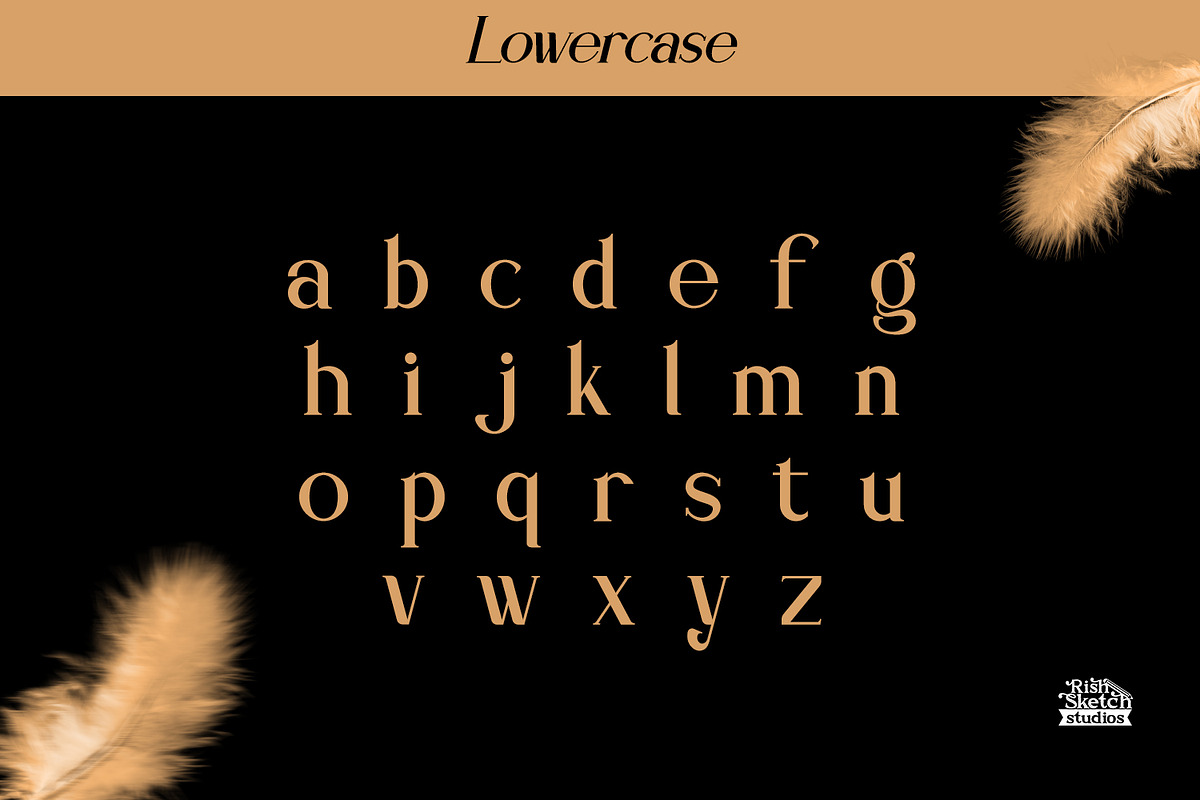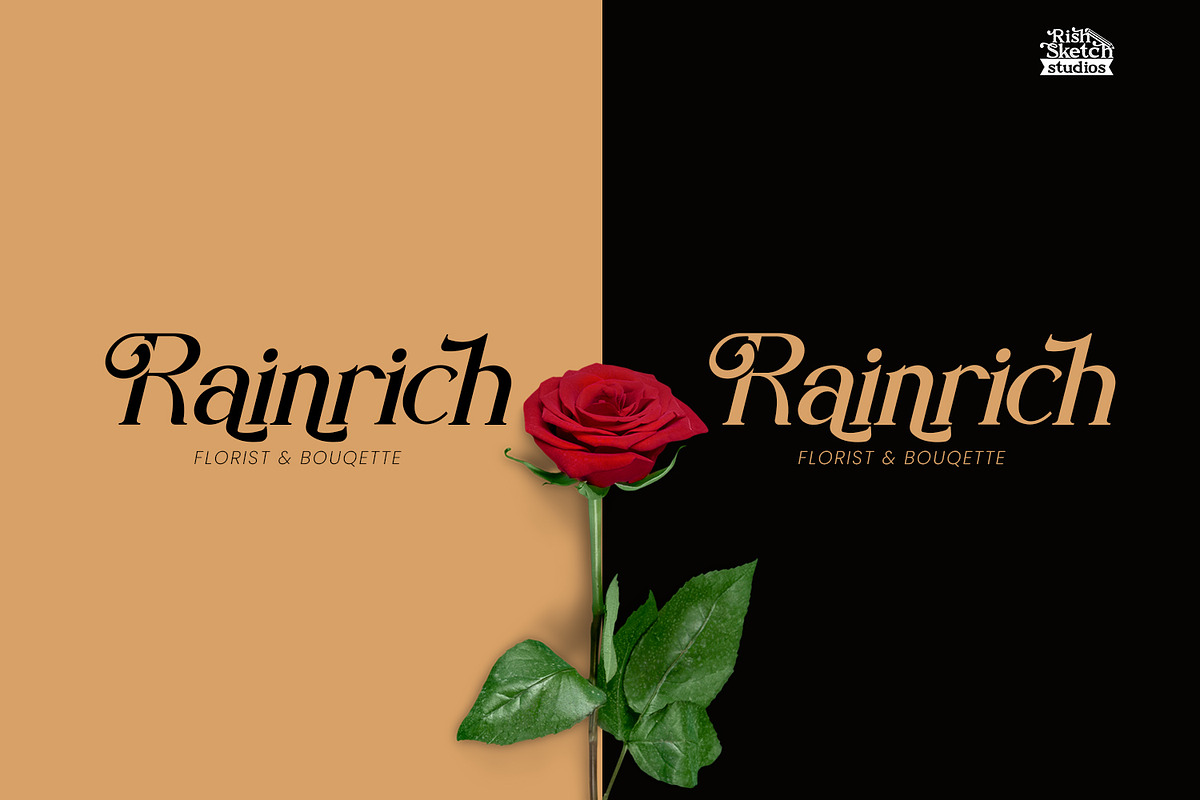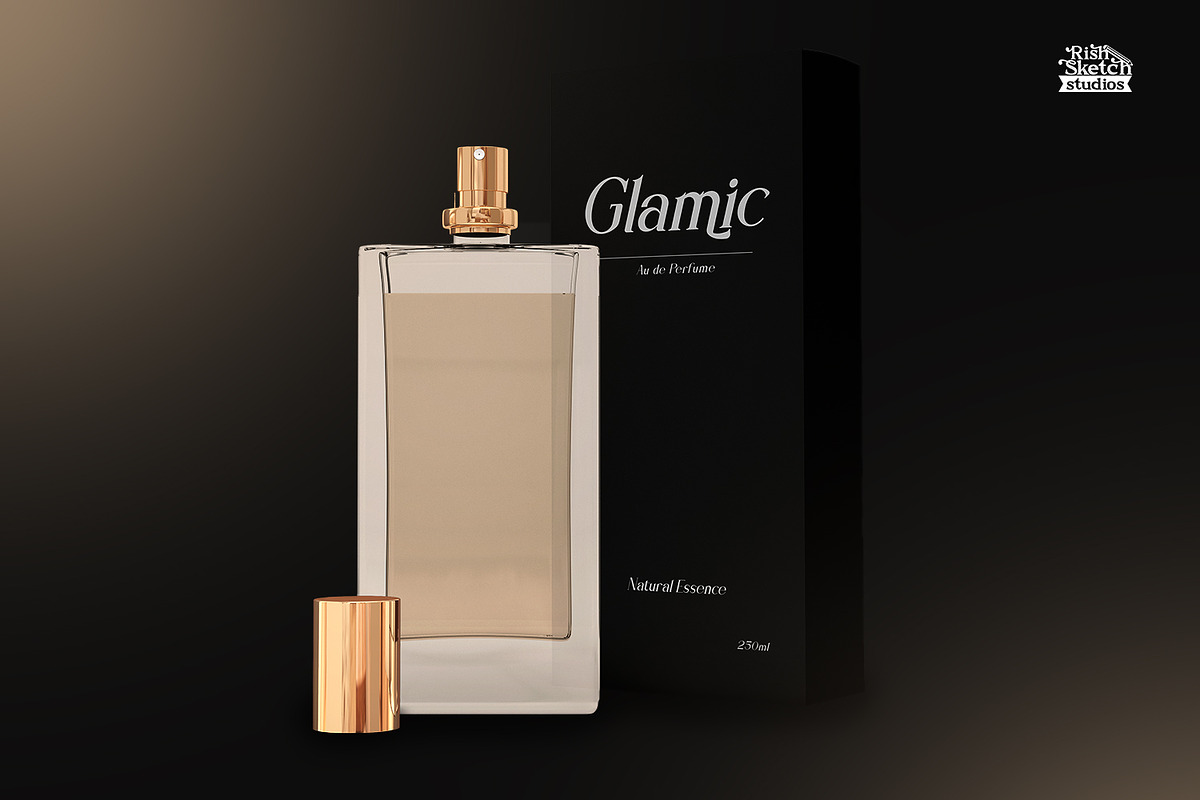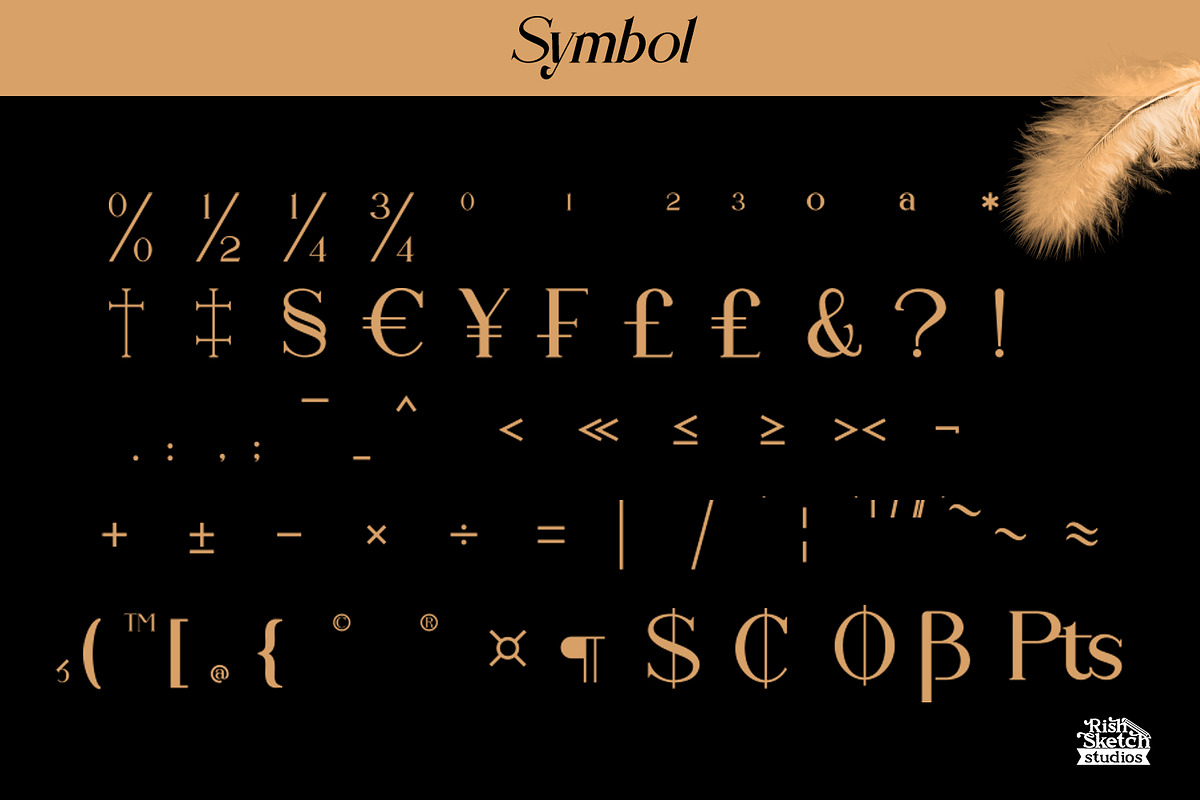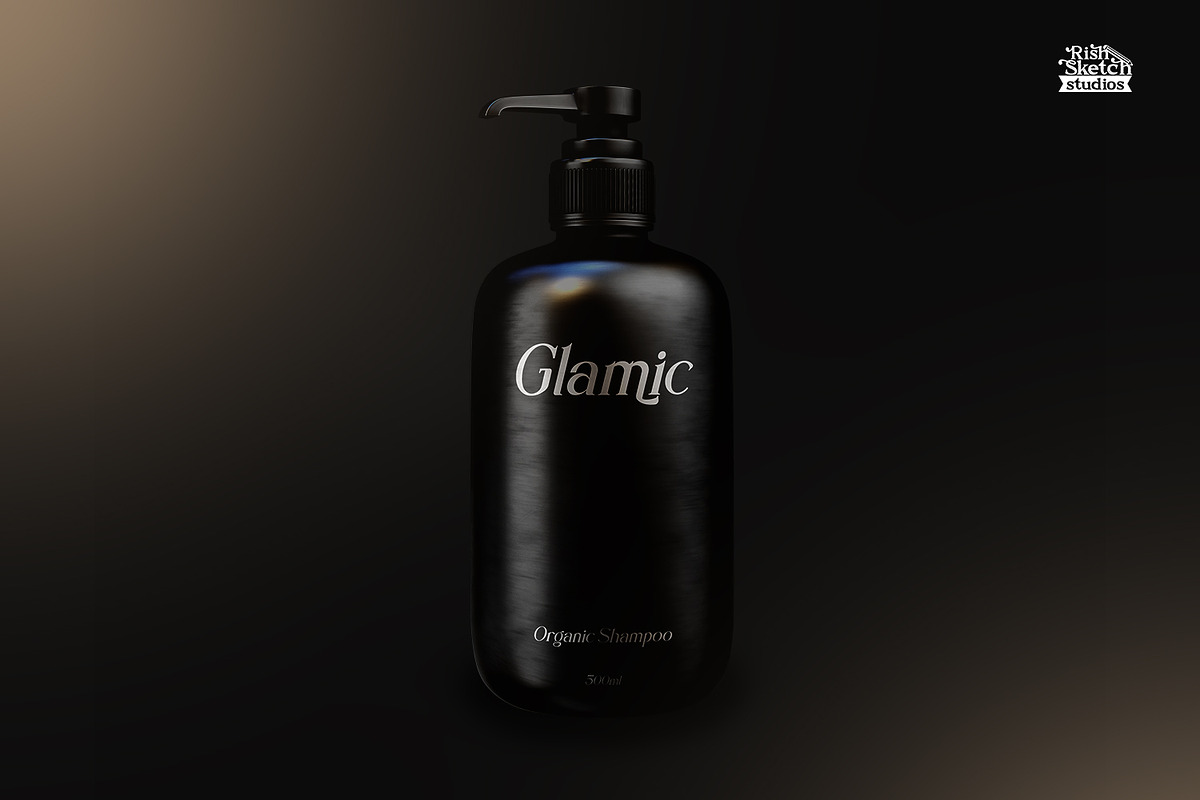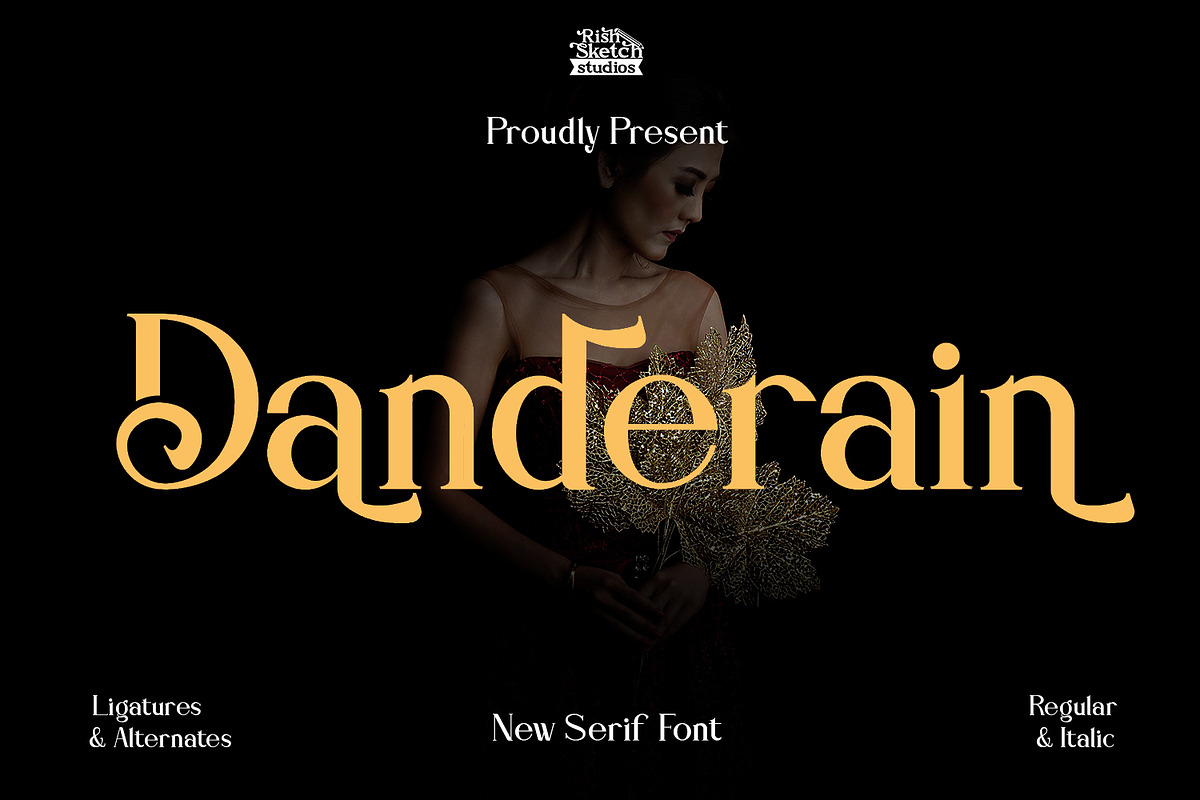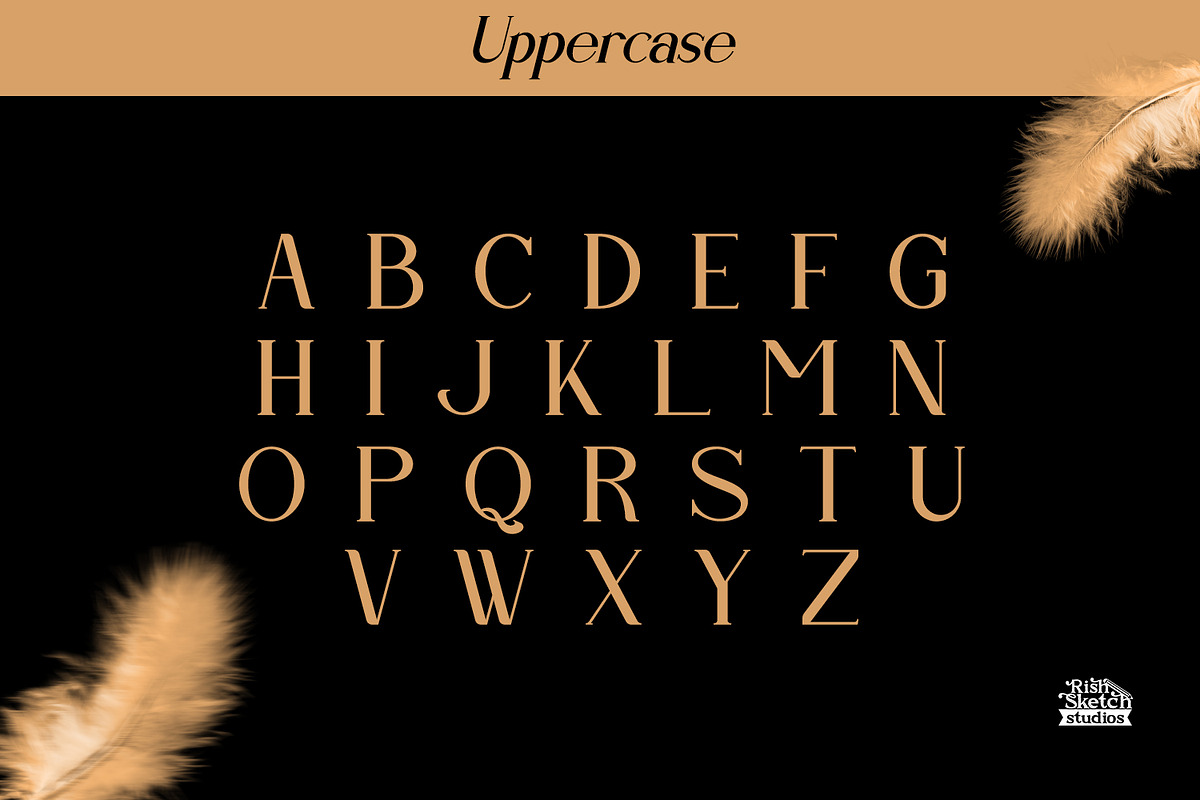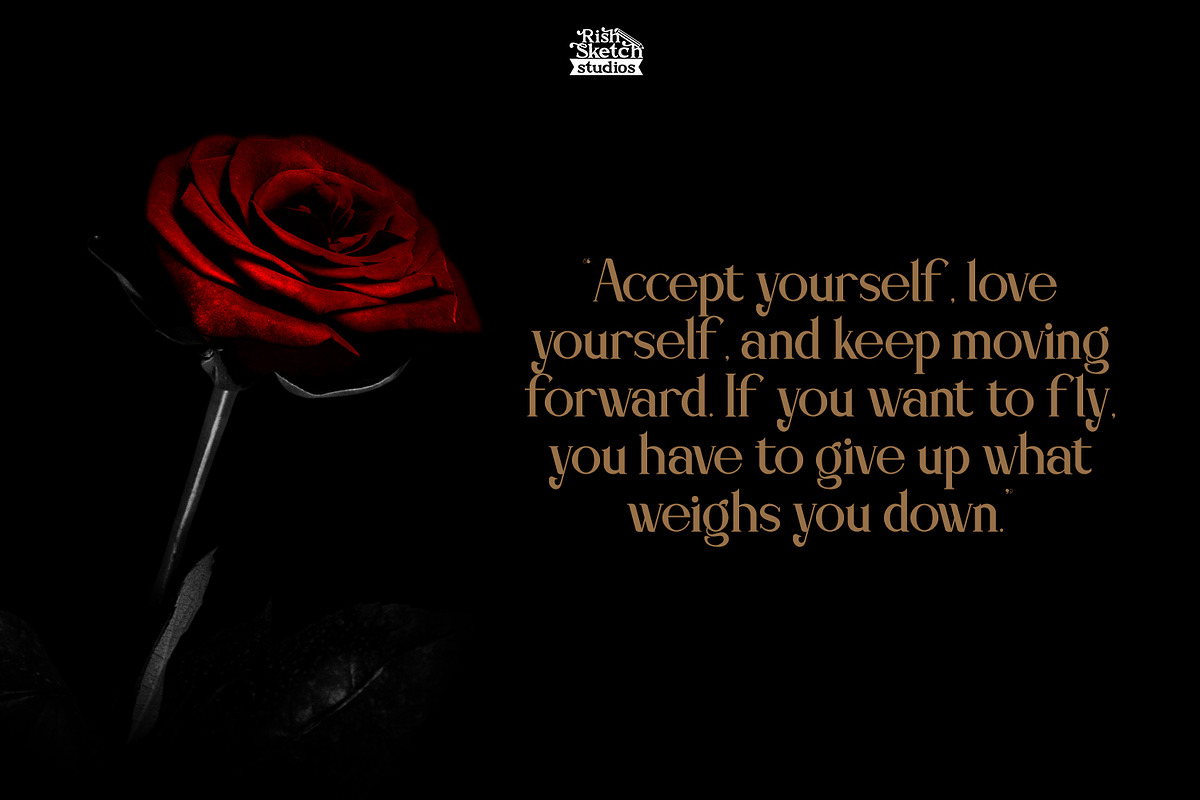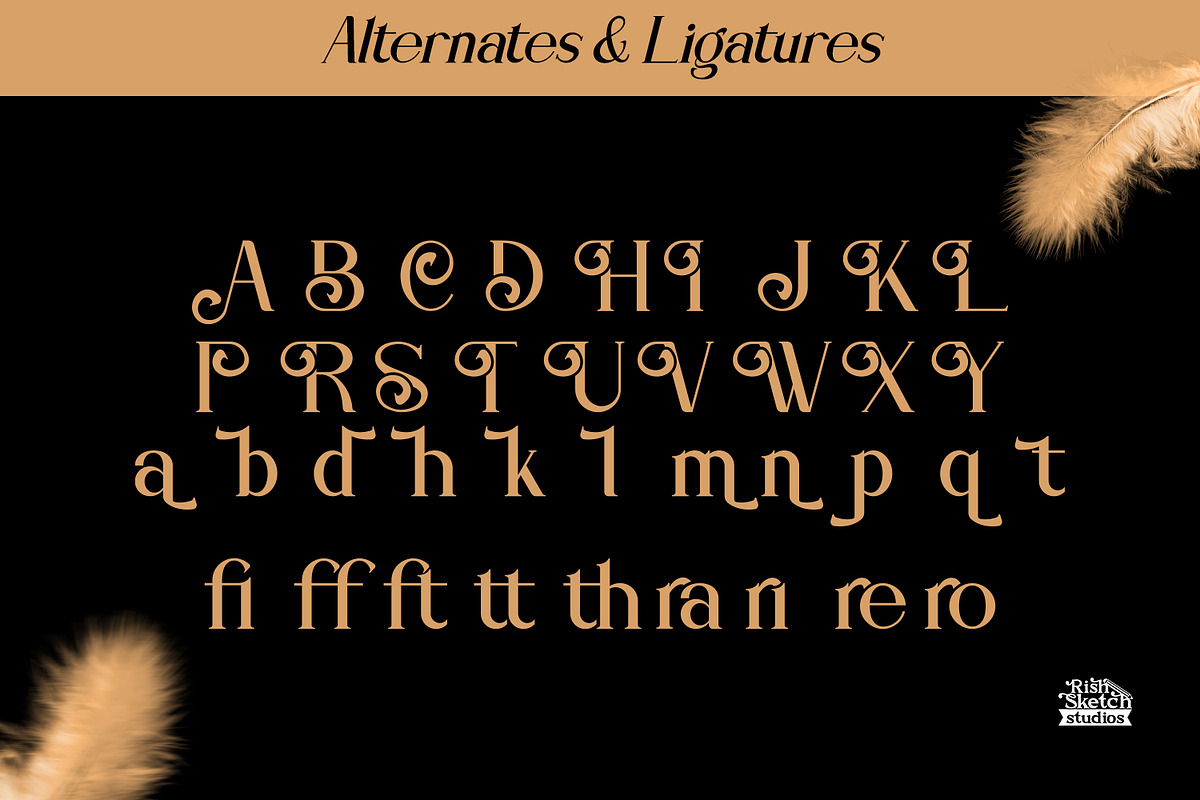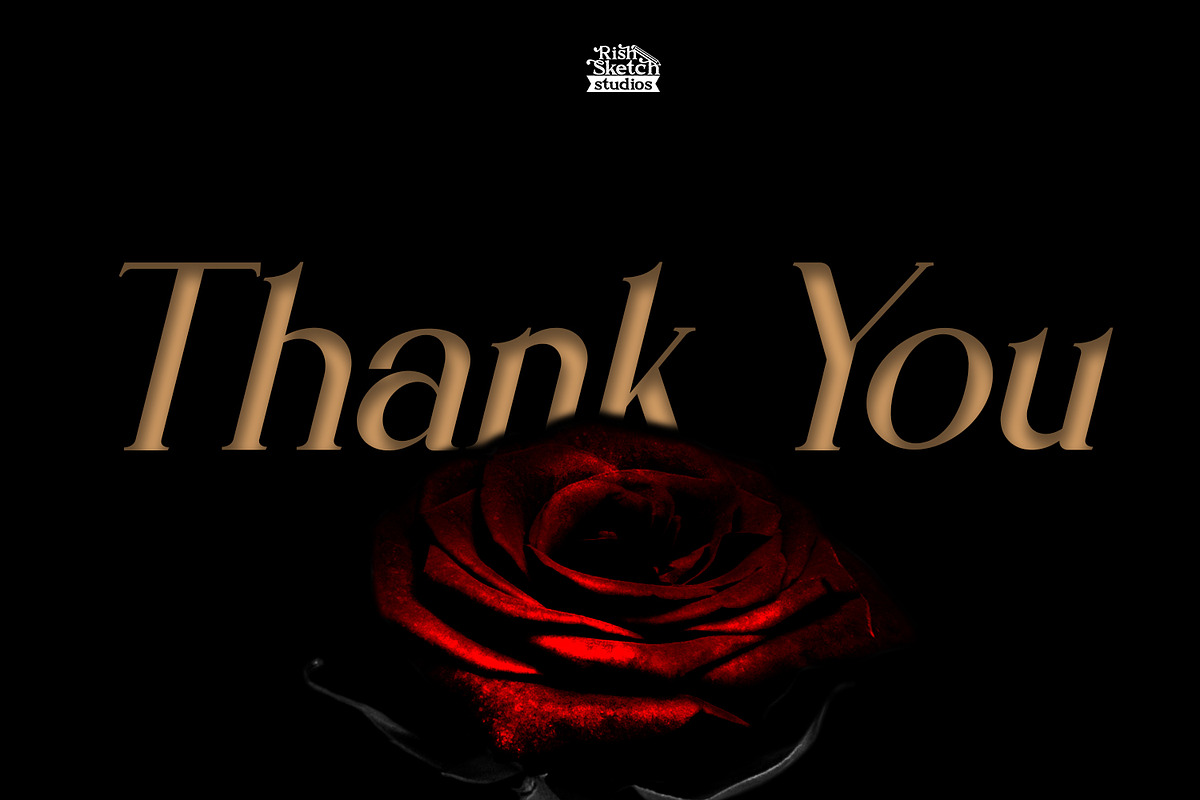
Danderain
Danderain - Modern Elegant Serif Font, from Rishsketch Studios, is a premium Serif Font, perfect for any project that requires a distinctive, and premium feel.
Ligature, Alternate & Multilingu